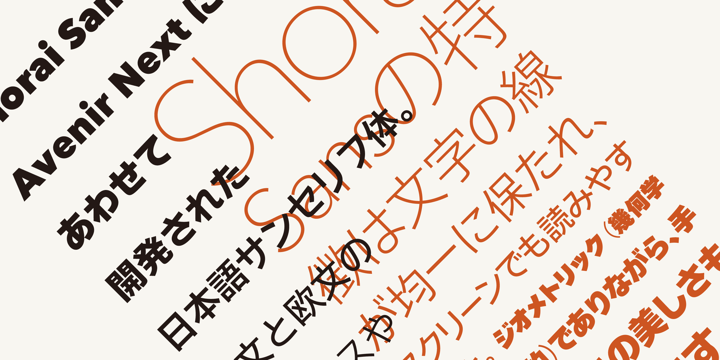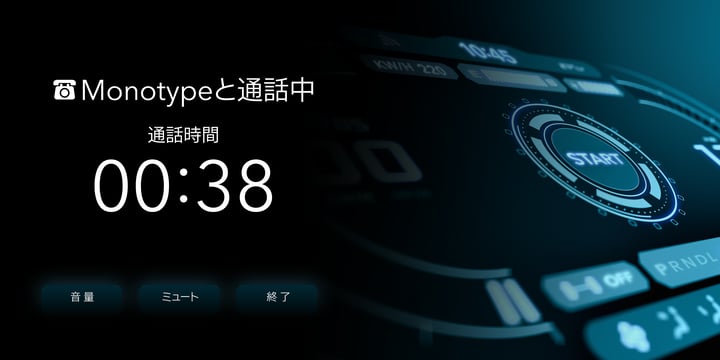
Shorai™ Sans
by Monotype
The Shorai Sans Font Family was designed by Akira Kobayashi, Monotype Design Studio, Ryota Doi and published by Monotype. Shorai Sans contains 10 styles and family package options. More about this family
Shorai™ Sans balances the subtlety of traditional hand-drawn brushstrokes with clean, geometric outlines. An intellectual-looking sans serif, Shorai’s simplified letterforms and vast weight ranges provide creatives with a holistic branding solution. Shorai Sans was designed as a companion typeface to Avenir® Next, built to work harmoniously in modern global designs, while preserving the essence of Japanese handwriting. Shorai goes beyond existing Japanese sans serifs to provide a wide spectrum of expression and personality for designers to play with. Shorai Sans is opening new horizons in Japanese typography.
Designers: Akira Kobayashi, Monotype Design Studio, Ryota Doi
Foundry: Monotype